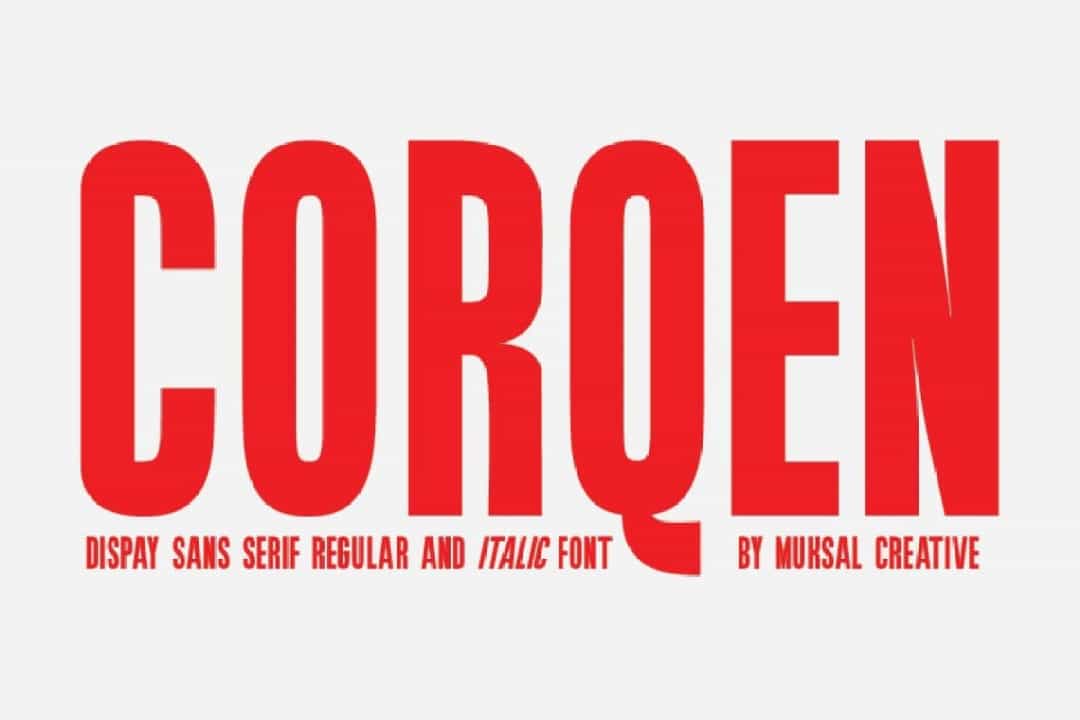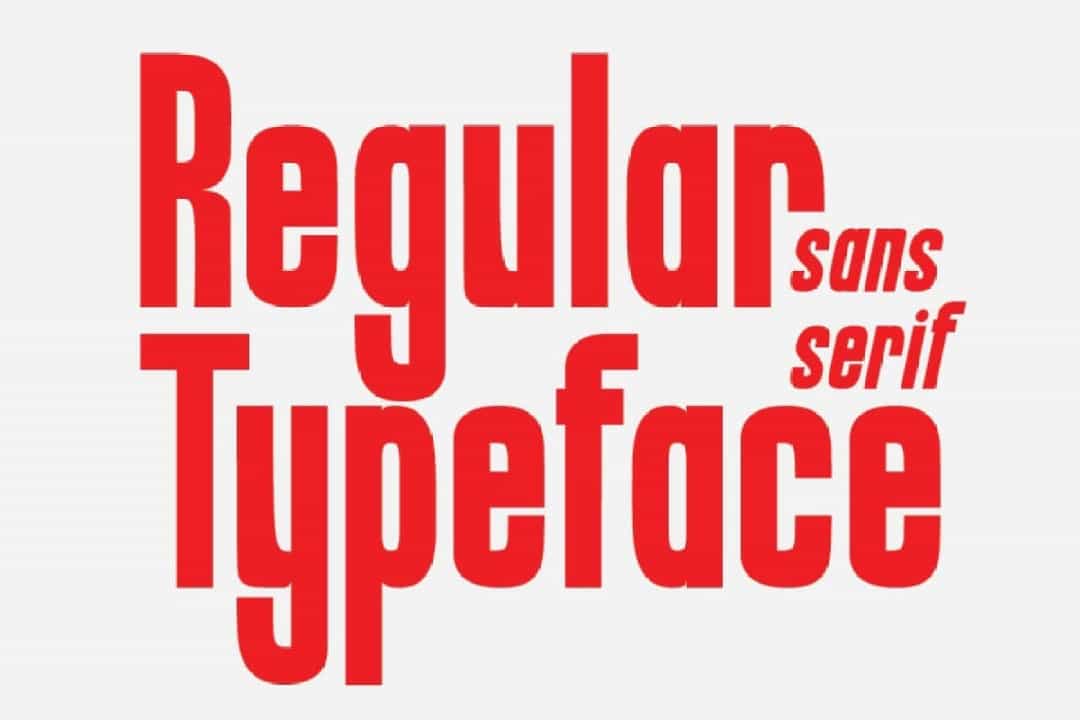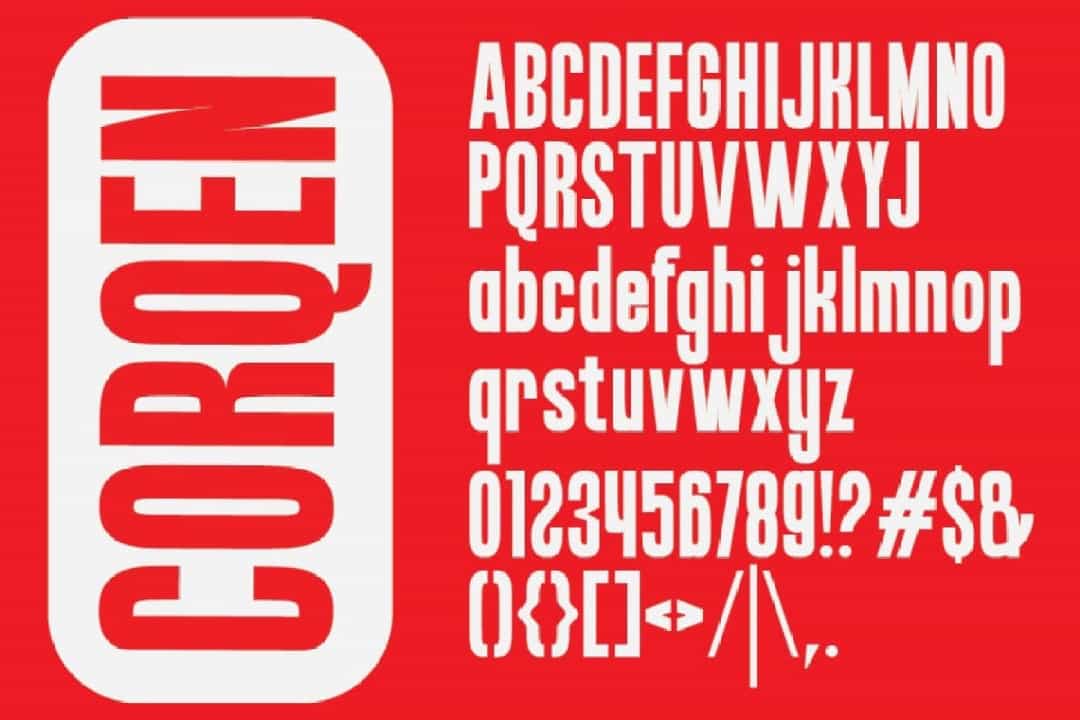
Corqen stands out as a Display Sans Serif font with its own distinct style. Specifically suited to posters, social media posts and headlines for posters and social media accounts; magazine titles; clothing; large print formats as well as any place else where one wants to stand out, this font will help any concept come to life in today’s society. Inspired by current design trends it will meet any requirement you present today with ease.